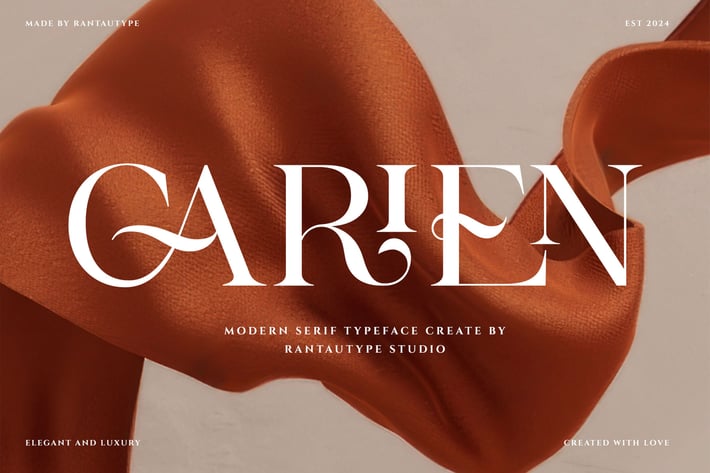
Carien A Modern Serif Font
Carien is modern, feminine, display serif font that embraces elegance and grace. Its delicate curves and refined details create a sense of sophistication and femininity. Carien come to help you make a visual design project stand out.
Carien is a perfectly choice for any creative endeavor, chic, lifestyle design such as logos, advertisements, watermark on photography, stationery, branding project, display and magazine, invitation, corporate brand, product design, label, business project and many other project with elegant touch.
Alternate and Ligature